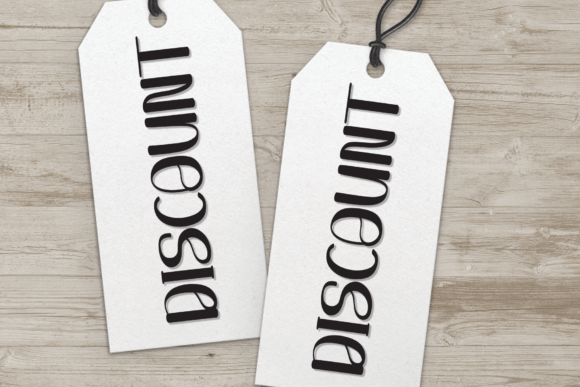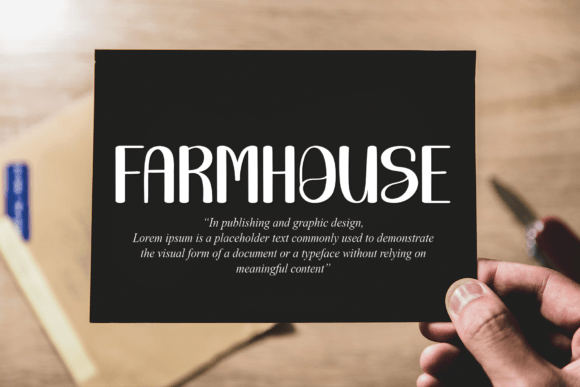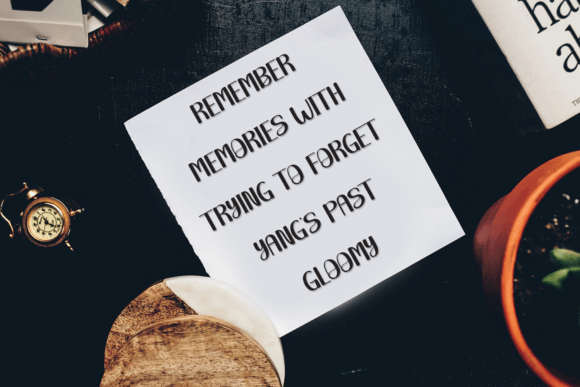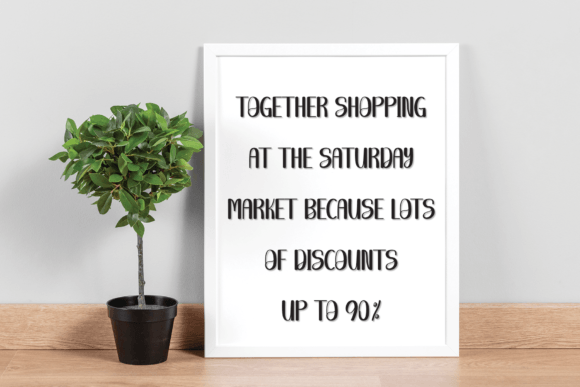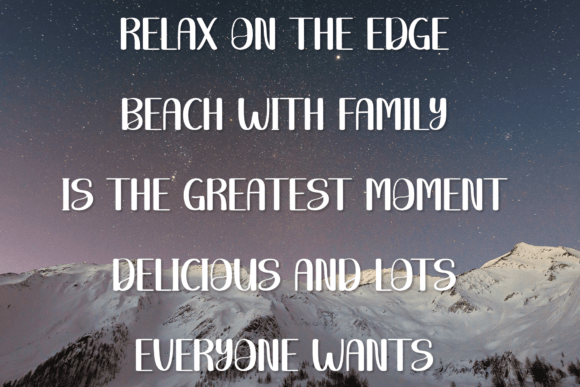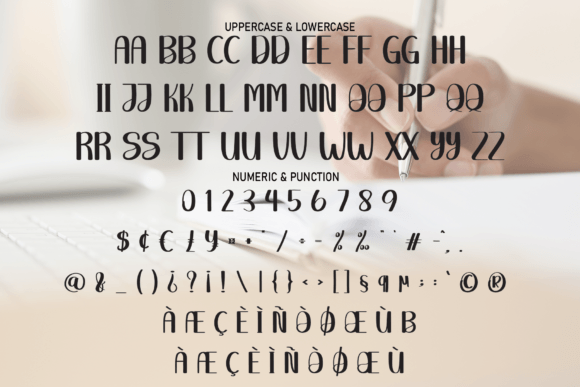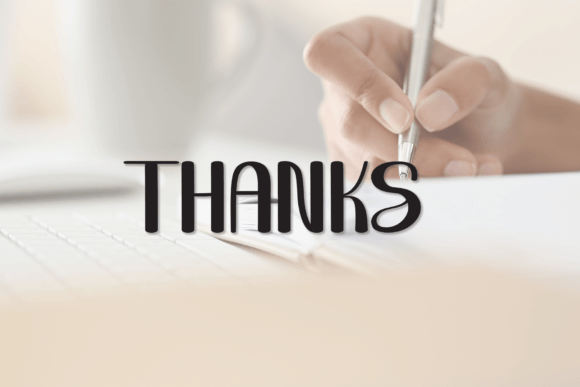
Writing Story Font
A Beautiful Handwritten Typeface for Creative Projects
The Writing Story Font is an elegant handwritten typeface that brings a unique, personal touch to any design project. Whether you’re creating wedding invitations, social media post logos, or advertisements, this font adds a timeless, charming flair to your work. Its flowing strokes and distinct design make it perfect for a wide range of creative applications, ensuring your designs stand out with sophistication and grace.
Perfect for Wedding Invitations and Special Occasions
For wedding invitations and other special occasion designs, the Writing Story Font provides a romantic and elegant touch. Whether you’re designing save-the-dates, invitations, or thank you cards, this font ensures your stationery feels personal and refined. Its handwritten style brings a sense of authenticity and charm, making it perfect for weddings and other memorable events.
Ideal for Logos and Branding
For logos and branding, the Writing Story Font provides a stylish, approachable design. Whether you’re working on a personal brand logo, business branding, or social media graphics, this font offers a distinctive look that reflects creativity and elegance. Its handwritten appeal makes your brand feel authentic and memorable, perfect for standing out in a crowded marketplace.
Great for Advertisements and Product Packaging
For advertisements and product packaging, the Writing Story Font provides a refined, premium look. Whether you’re designing product labels, flyers, or advertising posters, this font enhances your materials with an elegant handwritten style. Its versatility ensures your products stand out, while still maintaining a personalized and authentic look.
Ideal for Photography and Watermarks
For photography and watermarks, the Writing Story Font works beautifully. Whether you’re adding a photographer’s signature or custom watermark to your images, this font gives your work a personalized, memorable touch. Its flowing strokes and handwritten feel make it ideal for photo albums, portfolios, and watermarks, ensuring your photography is marked with elegance and professionalism.
Elegant, Legible, and Versatile
Despite its elegant handwritten design, the Writing Story Font remains legible and versatile. Its smooth, well-spaced strokes ensure that your text is easy to read, even in smaller sizes or for longer passages. Whether you’re creating headlines, captions, or body text, this font strikes the perfect balance of style and clarity, making it ideal for a wide range of creative projects.
Add Elegance and Charm to Your Designs with Writing Story Font
If you’re looking for a neat, elegant, and handwritten font to enhance your designs, the Writing Story Font is the perfect choice. Whether you’re working on wedding invitations, logos, advertisements, or product packaging, this font brings a timeless, charming touch to your work. Let the Writing Story Font add grace, style, and sophistication to your creative projects and help them stand out with elegance.